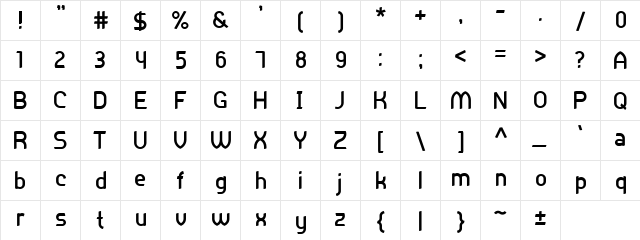
Practicum Regular
Design Context for Practicum Typeface
Practicum offers clean, dependable letterforms without strong stylistic allegiance, making it a practical choice for designers who need flexibility.
Pro Tip: Pair Practicum with a font of contrasting weight or personality to build a more expressive typographic hierarchy.